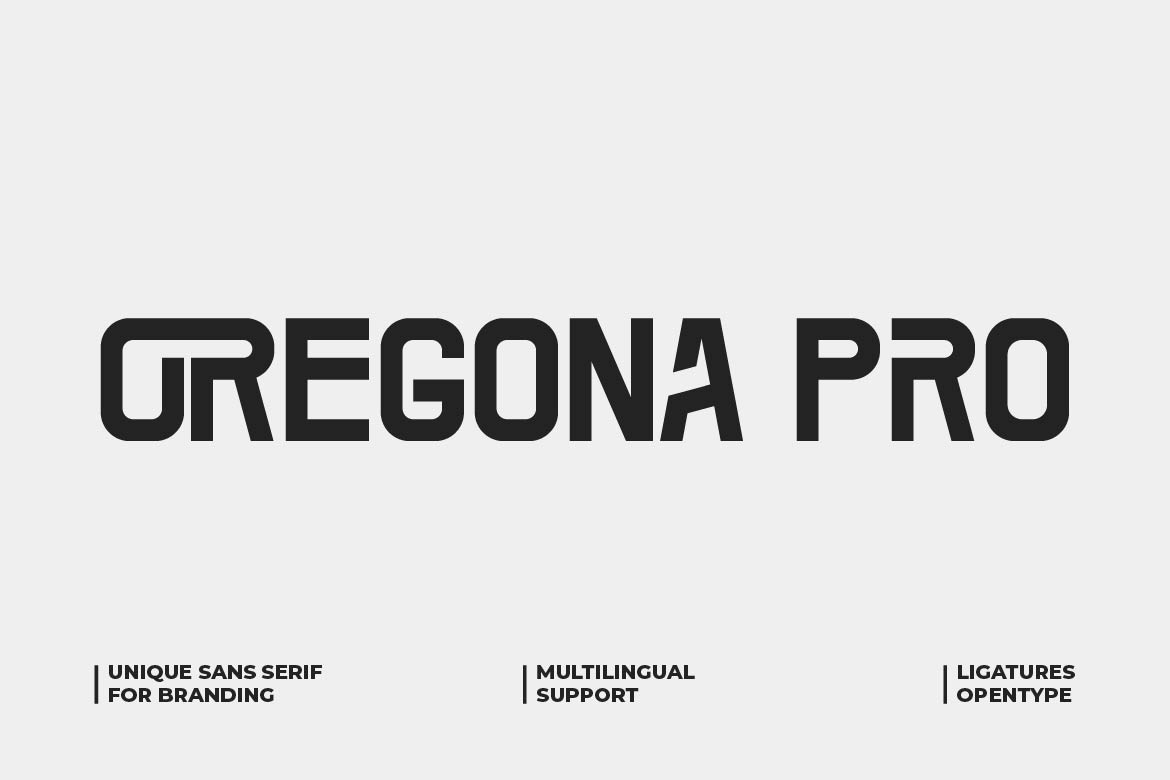
- Oregona Pro – Modern Geometric Sans Serif Font for Branding & Display
Oregona Pro is the full and polished evolution of the original Oregona typeface. Built as a modern geometric sans serif, this font combines clean structure with subtle uniqueness in every character. The letterforms are bold, balanced, and highly readable, making Oregona Pro perfect for logos, branding, posters, headlines, web design, packaging, and digital products.
This complete version includes expanded multilingual support, refined alternates, and smooth spacing for professional typography results. Whether you’re designing for startups, tech brands, creative studios, or modern editorial layouts, Oregona Pro delivers clarity, strength, and contemporary style in every composition.
Oregona Pro is not just a font — it’s a modern identity tool for confident design.